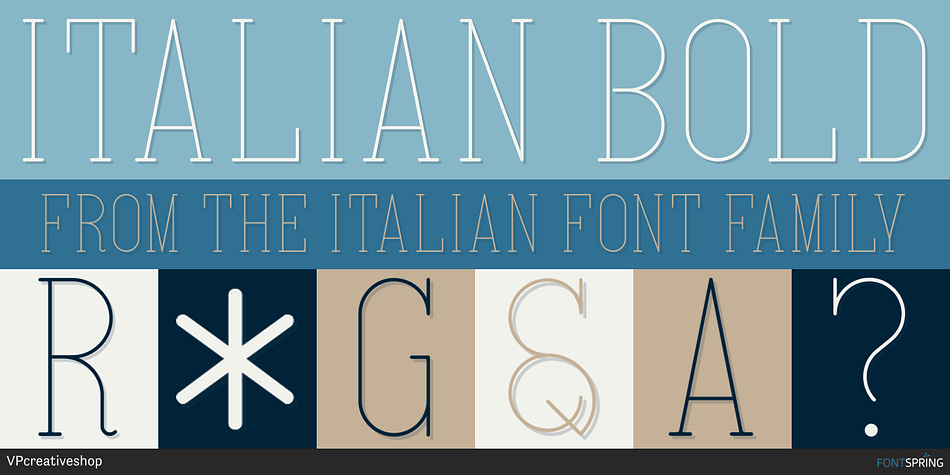
Italian Bold
Italian is a display serif font family. This typeface has twenty-four styles and was published by VPcreativeshop.
Introducing Italian Slab Serif Typeface - 24 fonts + graphics
Italian is long, clean typeface with 24 fonts to enchant your next project. Very versatile fonts that works great in large and small sizes.
Italian is perfect for branding projects, home-ware designs, product packaging, magazine headers - or simply as a stylish text overlay to any background image.
Uppercase numeral, punctuation & Symbol
Light
Regular
Medium
Bold
3 styles
Italics